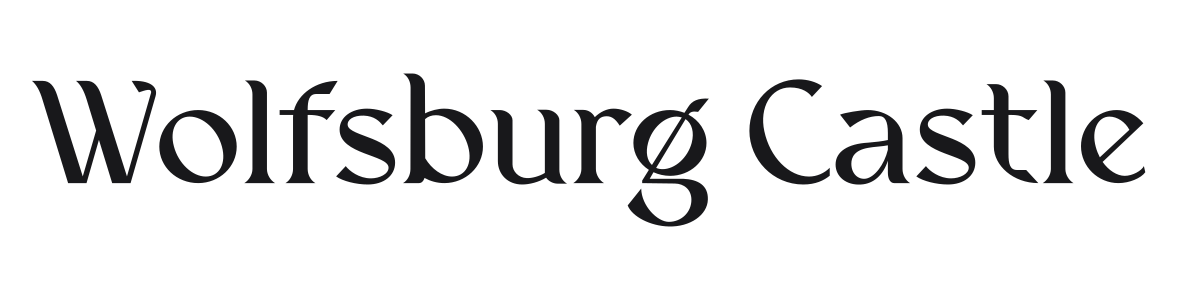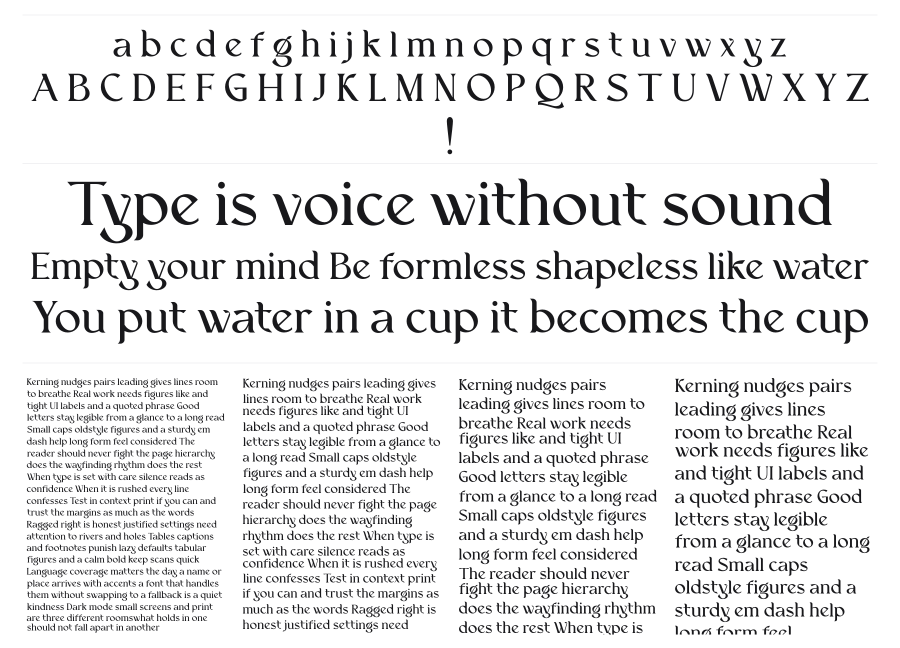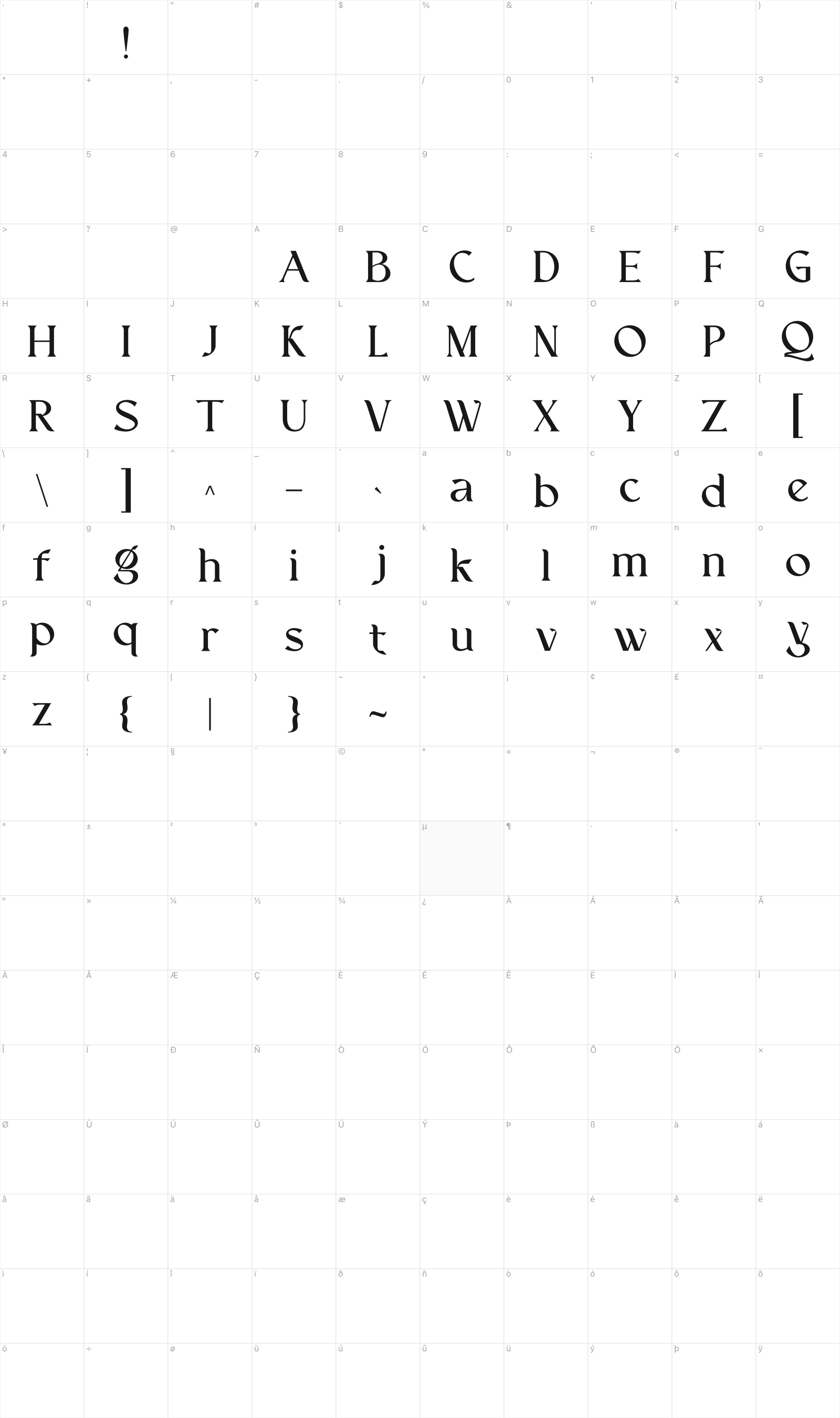
Wolfsburg Castle
Wolfsburg Castle is a high-contrast contemporary serif with dramatic thin-to-thick stroke variation and refined, elegant proportions. The hairline serifs and open counters give it a polished editorial quality reminiscent of upscale magazine typography. It carries the tension of Didone heritage updated with a clean, modern sensibility.